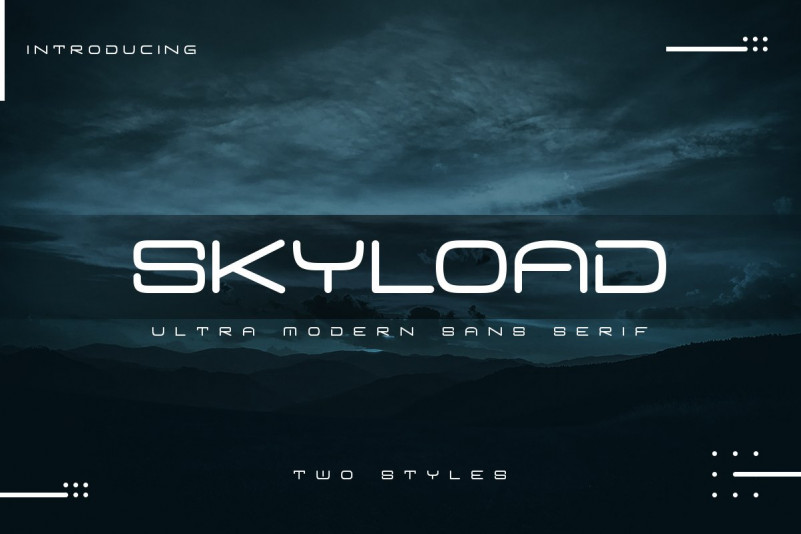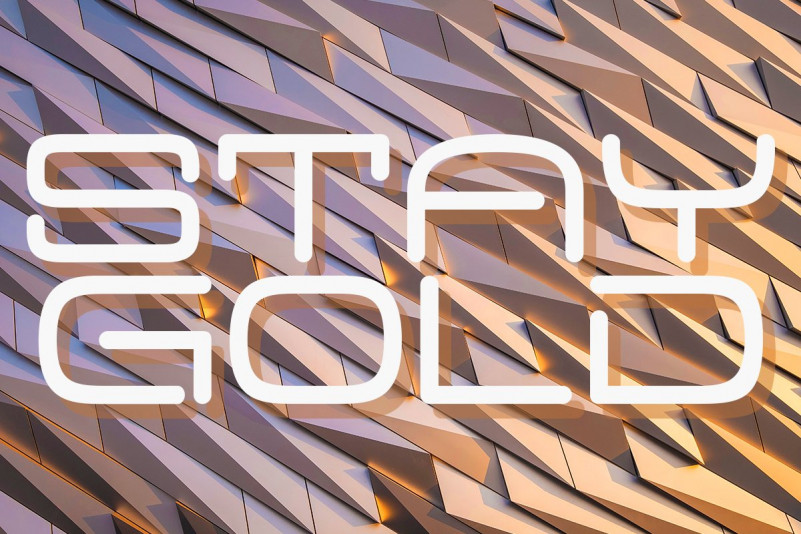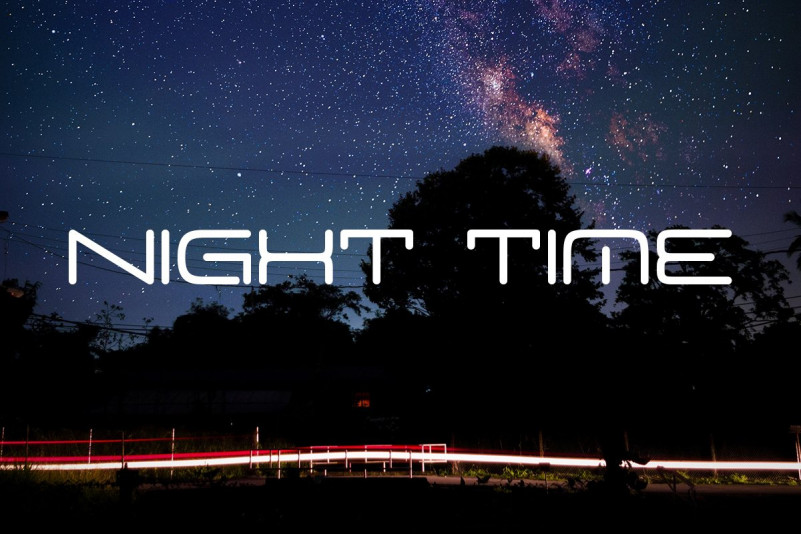
Skyload Font
Skyload fonts includes uppercase letters, numerals, a large range of punctuation. sans serif font with modern style. Created for poster, web design, branding, illustrations, badges and some other works.